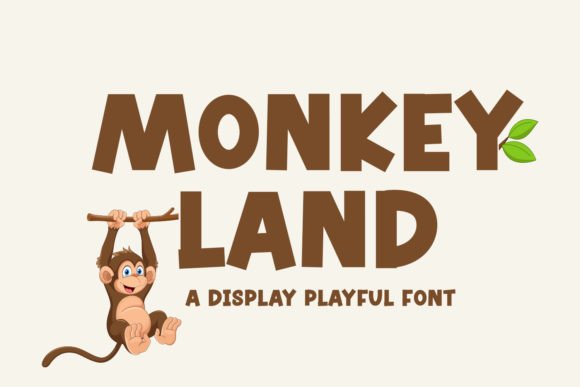
Monkey Land: A Playful Yet Polished Display Font
First impression? Monkey Land feels like a sun-drenched carnival ride—joyful, slightly mischievous, and undeniably human. It’s not cartoonish in the cliché sense; there’s craft in the uneven baseline, warmth in the rounded terminals, and intention in the subtle asymmetry of letters like g, a, and s. This isn’t a font that shouts—it grins, winks, and leans in. As a display font, it’s built for impact, not endurance. You won’t set body copy in Monkey Land—and you shouldn’t—but where it lands matters deeply.
Where Monkey Land Earns Its Place in Real Projects
In logo design, Monkey Land excels when the brand voice is approachable, imaginative, or intentionally unpolished—think indie toy shops, children’s book publishers, eco-conscious snack brands, or handmade ceramics studios. It holds up beautifully on packaging design: a small-batch granola box, a soy candle label, or a greeting card line all gain instant personality without sacrificing clarity. The letterforms have enough weight and rhythm to survive die-cutting, foil stamping, and screen printing—key for premium packaging.
For social media graphics and digital ads, Monkey Land cuts through scroll fatigue. Used at 48–72pt in Instagram story headers or Pinterest pins, it delivers visual punch while keeping tone consistent across platforms. It works especially well in blog graphics for lifestyle or parenting content—pairing a bold Monkey Land headline with a clean sans serif body font creates immediate hierarchy and emotional resonance.
Merchandise and printable design benefit from its friendly confidence. On tote bags, enamel pins, or printable party kits, Monkey Land avoids the “clip-art” trap many creative fonts fall into. Its spacing is generous, its curves are deliberate—not rushed—and its x-height gives it presence even at medium sizes (36–48pt). In Canva templates or Cricut projects, it scales cleanly and exports crisply—no jagged edges, no awkward kerning surprises.
Where to Use It—And Where to Pause
Monkey Land shines in short phrases: brand marks (“Wild & Whimsy”), quotes (“Made with love, not algorithms”), event names (“Summer Scribble Camp”), or product names (“Berry Bounce Jam”). It’s ideal for invitations, posters, and flyers where attention is fleeting and mood is mission-critical.
But it’s not a workhorse. Avoid using Monkey Land for long headlines over 6 words, navigation menus, or supporting text—even at 24pt. Its charm lies in contrast, not consistency. When overused across an entire website header, email banner, and footer, it flattens rather than focuses. It also doesn’t pair well with other high-contrast display fonts—two playful typefaces competing for attention dilute both.
Use it thoughtfully in editorial design too: as a section opener in a zine, a pull-quote accent in a digital magazine, or a chapter title in a self-published guide. It signals a shift—not just in topic, but in tone.
What It Does to Your Design’s Core Qualities
Readability? High—within its lane. At 36pt+, characters resolve cleanly, even on mobile screens. But drop below 24pt, and details blur. Test it in black and white first—some display fonts rely on subtle gradients or outlines; Monkey Land doesn’t. What you see in the specimen is what you get in print or export.
Hierarchy? Excellent—when paired intentionally. Monkey Land naturally dominates. Set it beside a neutral sans serif (like Inter or Poppins) or a warm serif (like Lora or Literata), and the relationship feels grounded, not chaotic. It struggles next to most script fonts—too much competing energy—unless the script is ultra-minimalist and tightly spaced.
Brand consistency? Achievable—but only if Monkey Land anchors one layer of your system. Think of it as your “voice” typeface: used *only* for primary headlines, logos, and hero moments. Let your secondary fonts handle everything else. That discipline preserves its impact and avoids visual fatigue.
Audience trust and recognition? Surprisingly strong—for the right audience. Parents scanning a kids’ activity kit, creatives browsing Etsy design assets, or educators choosing classroom resources respond positively to its warmth and authenticity. It reads as hand-informed, not AI-generated—a quiet signal of care. That builds trust faster than sterile perfection ever could.
Designer Notes You’ll Actually Use
- Test it in black and white first—no color tricks masking poor contrast or shape confusion.
- Check readability at 20pt on a real mockup: printed label, phone screen, or fabric swatch—not just your design canvas.
- Compare uppercase vs. lowercase usage. Monkey Land’s lowercase has more character, but uppercase delivers bolder branding impact—especially in logos.
- Review spacing carefully. Its default tracking is generous, but tight lines (e.g., on a narrow product label) may need manual kerning between T and o, or V and e.
- Try pairing it beside four core categories: a serif font, a sans serif font, a script font, and another display font. Notice where tension feels intentional—and where it feels accidental.
It won’t solve weak concepting or sloppy layout—but in the hands of a thoughtful designer, it elevates intention. Whether you’re refining a brand identity for a local bakery, building social media graphics for a podcast, or designing printable planners for digital sellers, Monkey Land adds humanity without sacrificing polish.
Just remember: great typography isn’t about showing off the font. It’s about letting the message breathe—and Monkey Land knows exactly when to step forward, and when to step aside.